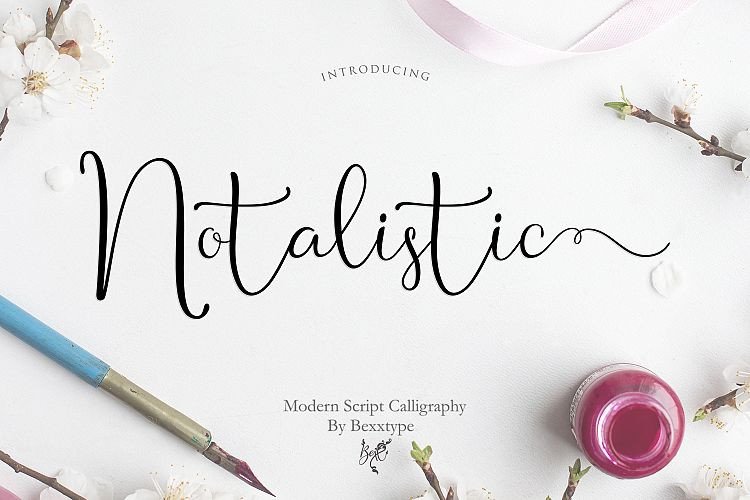
Notalistic Script Font
This is unique stylish modern calligraphy fonts, combines from copperplate to contemporary typeface with a dancing baseline, modern and elegant touch! Introducing Notalistic Script Font. So beautiful on invitation like greeting cards, branding materials, business cards, quotes, posters, and more!! Notalistic Script come with 387 glyphs. The alternative characters were divided into several Open Type features such as Swash, Stylistic Sets, Stylistic Alternates, Contextual Alternates.